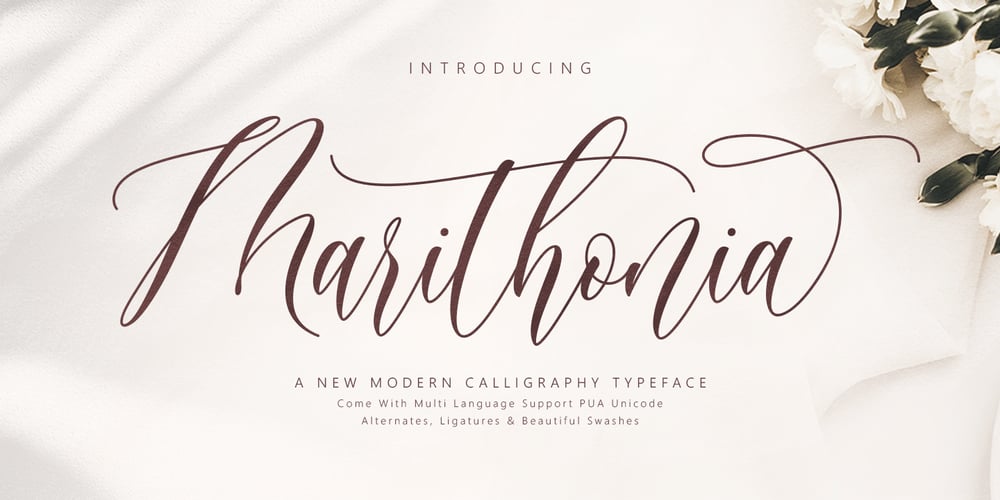
Marithonia
Marithonia font
Marithonia Font Family was designed by Jamaluddin and published by Jamalodin. Marithonia contains 1 styles and family package options. Marithonia is a beautiful modern calligraphy script font that is suitable for branding, wedding invitations, greeting cards, posters, name card, quotes, blog header, logo, fashion, apparel, letter, stationery and other projects.The font has PUA Unicode (Private Use Areas – font specific code). That all the alternative characters (with flourishes and swirly lines) can be easily accessed in full through Windows and Mac and you can load them into applications such as Cricut Design Space and Silhouette Studio.To access all OpenType Stylistic alternates, you need a program that supports OpenType features such as Adobe Illustrator, Adobe Photoshop, CorelDraw and Microsoft word.If you don’t have a program that supports OpenType features such as Adobe Illustrator and CorelDraw X Versions, you can access all the alternate glyphs using Font Book (Mac) or Character Map (Windows).If you have any question, don’t hesitate to contact me.Thanks for your visit.